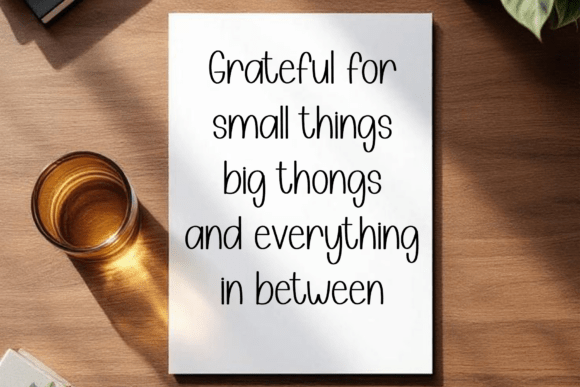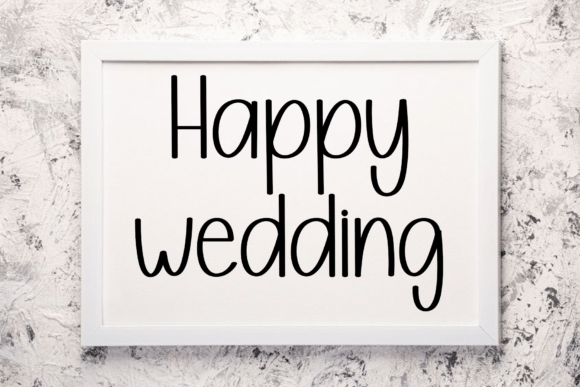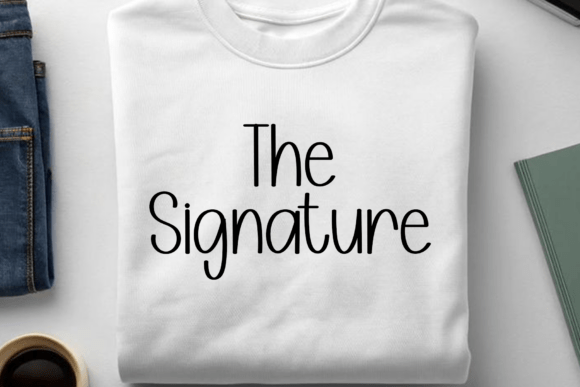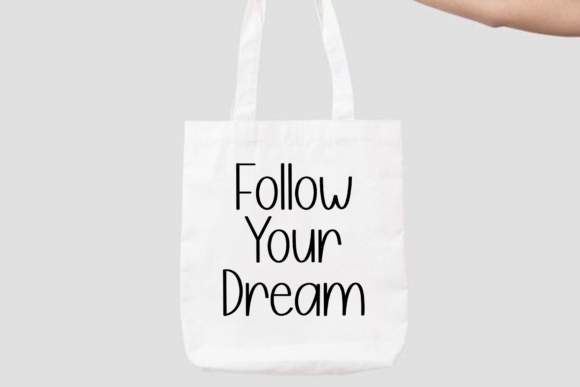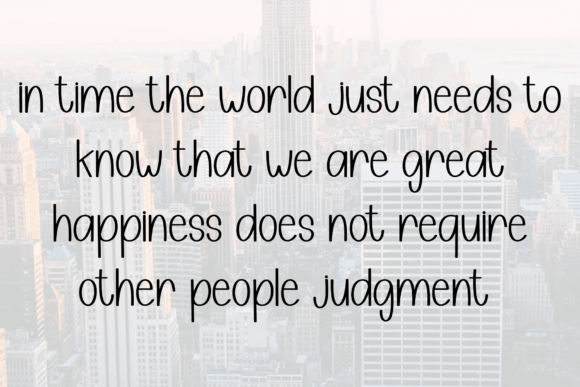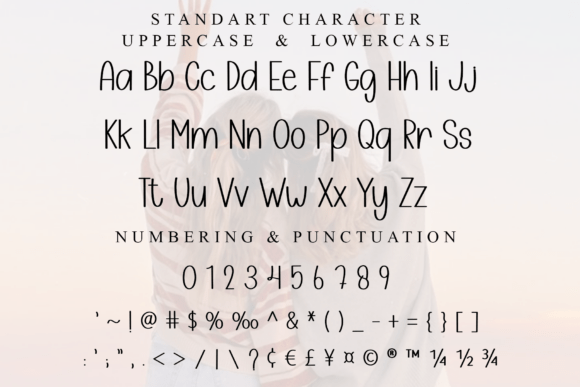
Introduction to Simple Famous Font
Simple Famous is a casual and creative font that exudes warmth and friendliness.
Its round, playful strokes create a relaxed and approachable feel, perfect for personal projects, invitations, and social media graphics The fontโ€™s charming, hand-drawn aesthetic adds a fun and unique touch to any design.
Key Features of Simple Famous Font